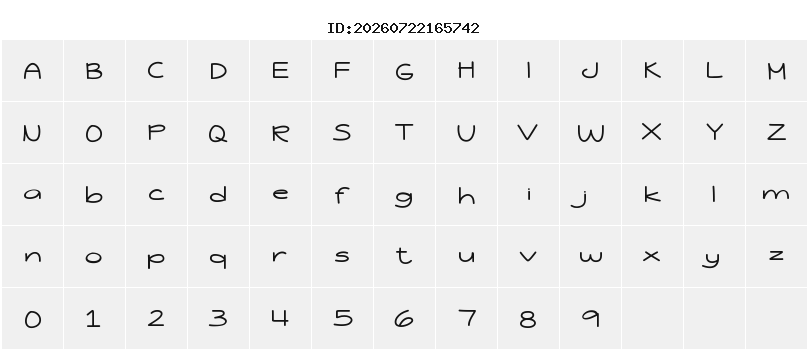
• Font Name: Jessica Elaine
• Full Font Name: Jessica Elaine
About Jessica Elaine.ttf
Jessica Elaine.ttf is a modern, elegant sans-serif font designed for ultimate readability and visual harmony. Perfect for branding, headlines, web design, and print materials.